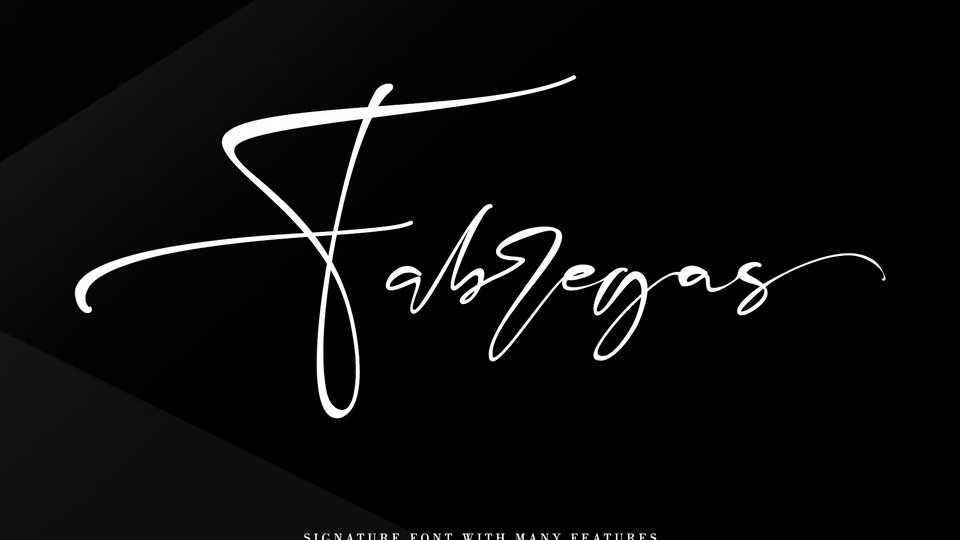
Download Fabregas font, a handwritten signature script with a natural and stylish flow. Faberglas font will add an authentic touch to any design idea.
Designer: Thomas Aradea